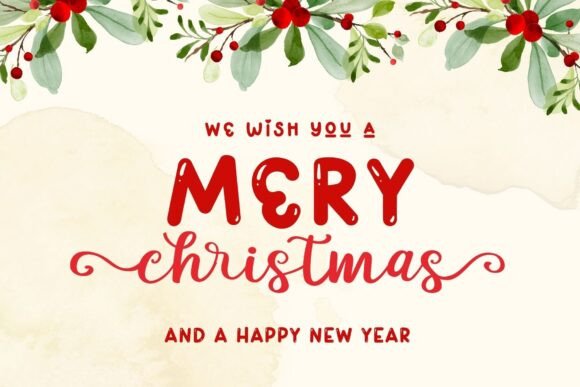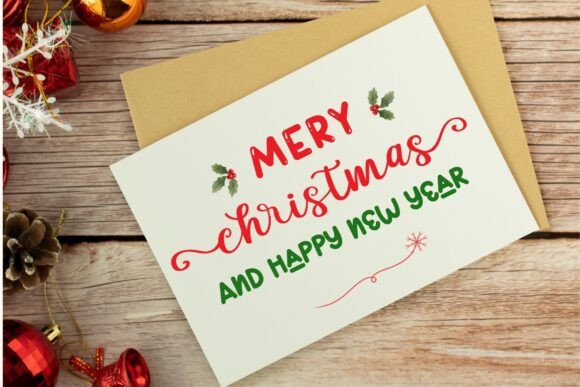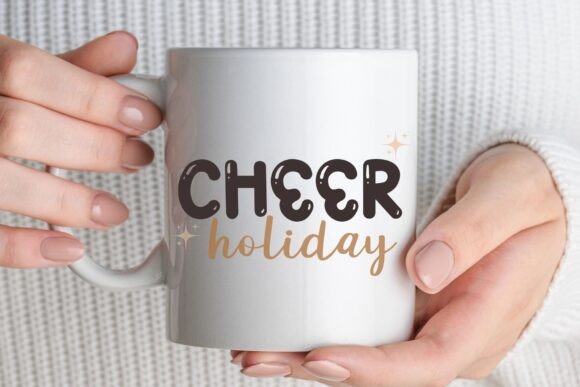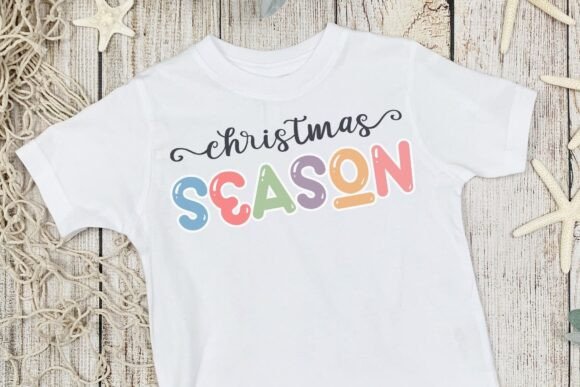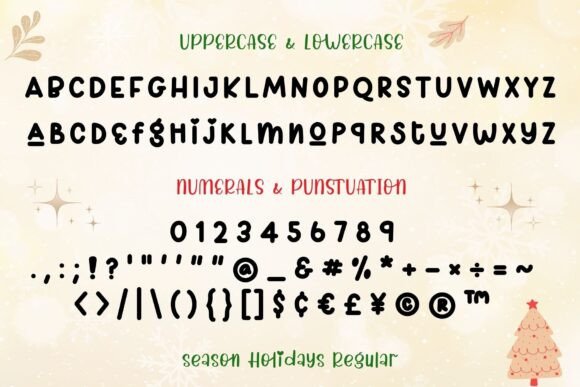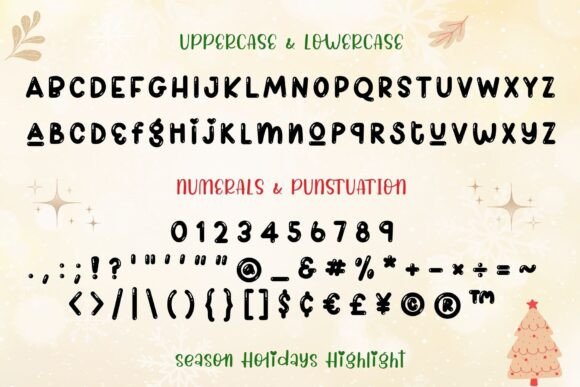
Introduction to Season Holidays Trio Font
As you sit at your desk, surrounded by scraps of paper, glue sticks, and twinkling lights, the holiday season is in full swing. You’re brainstorming ideas for a festive project – perhaps a Christmas card or a gift tag – and you’re searching for the perfect font to bring it all together. That’s when you stumble upon the Season Holidays Trio Font, a delightful and whimsical Christmas font trio that’s sure to infuse your creations with festive cheer.
This high-quality design resource is a game-changer for designers and crafters alike. With its charming script font and playful handwritten font, the Season Holidays Trio Font offers endless possibilities for unique and eye-catching designs. Whether you’re working on a free download or a paid project, this versatile font set is sure to elevate your creative project and make it stand out from the rest.
What sets the Season Holidays Trio Font apart is its ability to add a touch of holiday magic to every piece you create. With a transparent background, you can easily layer your designs and create complex, eye-catching compositions. And with its high-quality design, you can rest assured that your project will look professional and polished, even when printed on a mug or tote bag.
Key Features of Season Holidays Trio Font
- High-quality design resource ideal for creative projects, especially those related to winter, spring, and summer seasons.
- Comes in a transparent background, allowing for easy integration with various design elements and backgrounds.
- Includes three distinct font styles, each representing a different season: Winter, Spring, and Summer, providing versatility for various design projects.
Honest Review: Season Holidays Trio Font
As a designer, I’m always on the lookout for high-quality design resources to elevate my creative projects. The Season Holidays Trio Font is one such find that has caught my attention. Let’s dive into what makes it tick!
- Unique and elegant design aesthetic, perfect for festive projects
- Transparent background option allows for seamless integration with various design elements
- Only three fonts in the set, which might not be sufficient for more complex design projects
- No bold or italic variations, which could limit its versatility
Overall, the Season Holidays Trio Font is a great addition to any designer’s toolkit. Its elegant design and transparent background make it a versatile resource for various creative projects. While it has some limitations, its unique aesthetic and free download make it a worthwhile inclusion in your design resource library.
Use the Season Holidays Trio Font in combination with other festive design elements, such as holly leaves and snowflakes, to create a cohesive and eye-catching design. Experiment with different font sizes and colors to add depth and visual interest to your design.
The Season Holidays Trio Font is perfect for creating designs for holiday-themed projects, such as Christmas cards, New Year’s Eve invitations, and Valentine’s Day greetings. It’s also great for creating festive social media posts, email headers, and website headers.